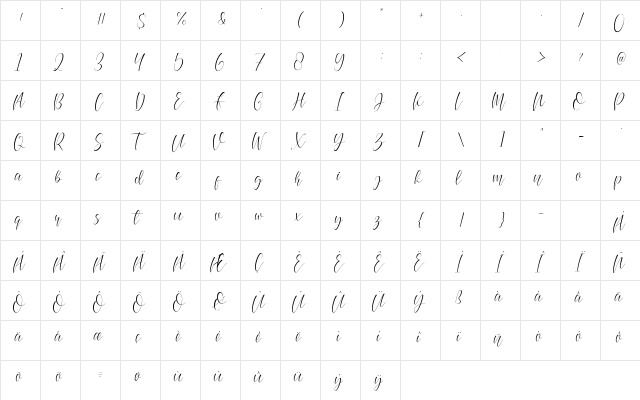
Beauty Amsterdam Regular
Design Context for Beauty Amsterdam Typeface
Beauty Amsterdam is a composed and adaptable typeface that performs quietly and consistently across a wide range of design contexts.